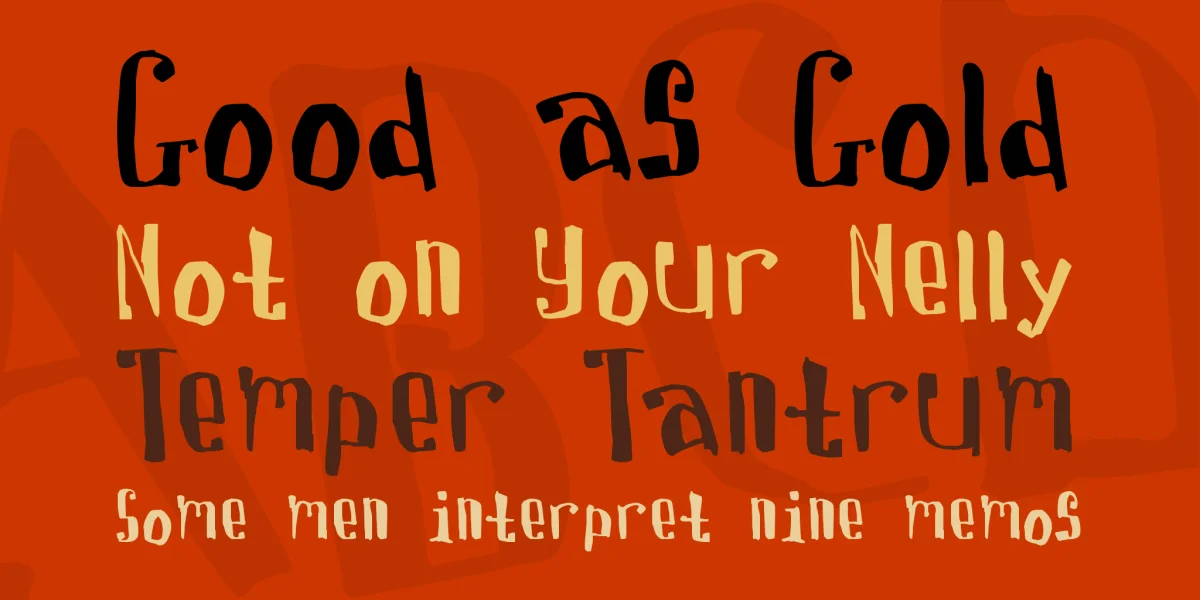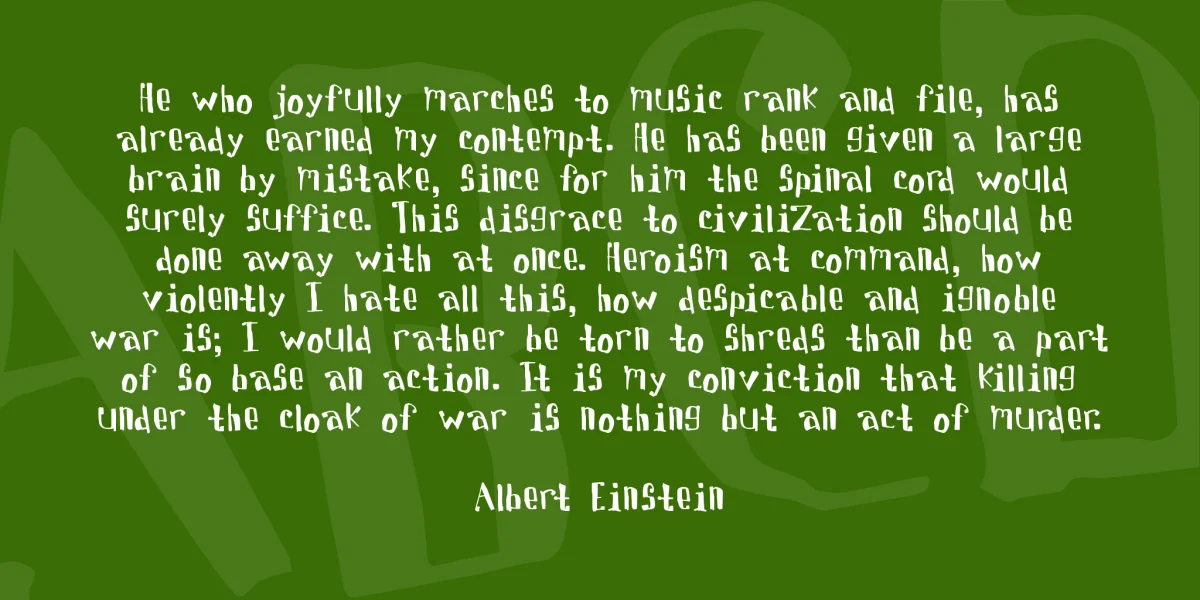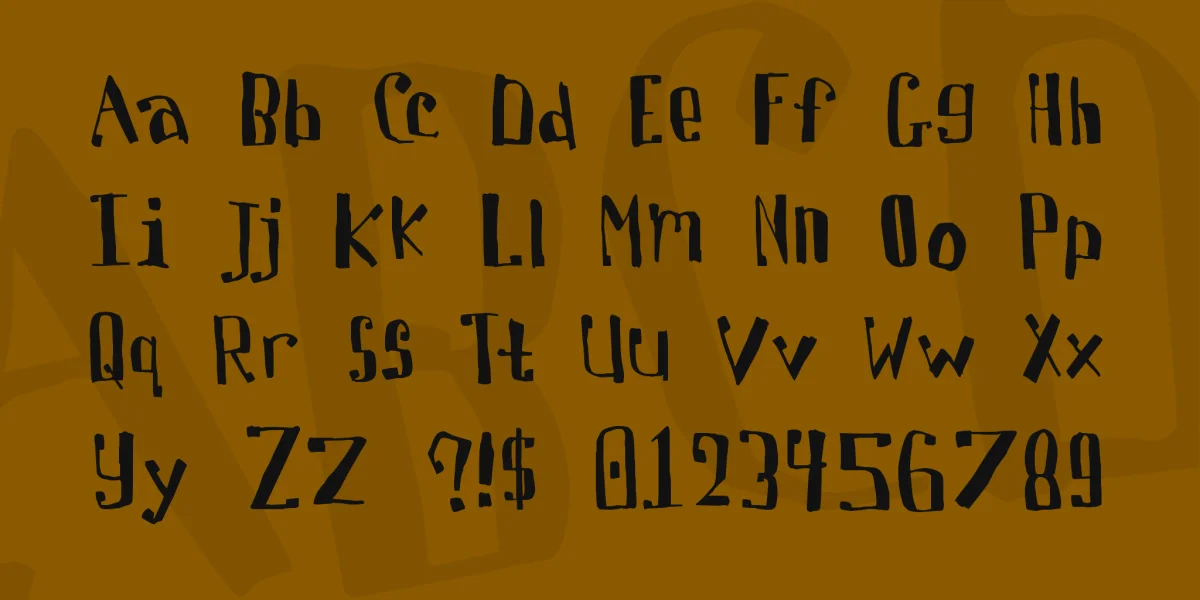
(Lowercase, Caps, Numbers, some Punctuation/Special) is a quasi-computerish but messy typeface. It looks good in all lowercase (at left) as well as with the standard capitalization. Works very well for headlines and is also readable as body text.